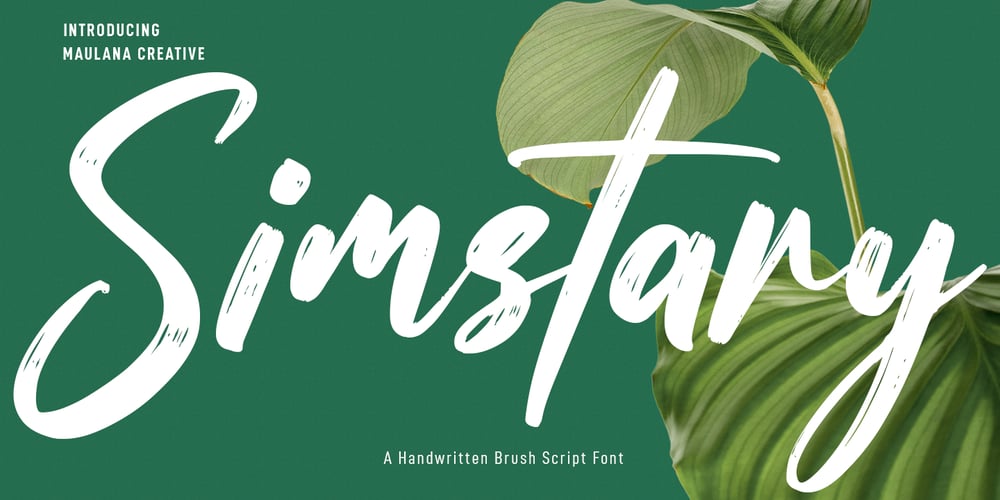
Simstary Font Family was designed by Gilang Maulana and published by Maulana Creative. Simstary contains 1 styles and family package options. Simstary is a Casual slant brushScript font. With bold brush stroke, fun character with a bit of ligatures. To give you an extra creative work. Simstary font support multilingual more than 100+ language. This font is good for logo design, Social media, Movie Titles, Books Titles, a short text even a long text letter and good for your secondary text font with sans or serif. Make a stunning work with Simstary font. Cheers, Maulana Creative